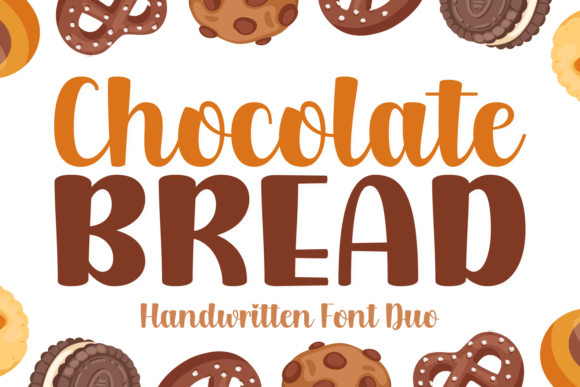
Journey through the realm of typography with Chocolate Bread Font, a script font family that's as sweet as a cocoa kiss and as warm as a toasted croissant. Inspired by the allure of handwritten notes and the timeless charm of vintage signage, Chocolate Bread Font exudes a personality that's both captivating and approachable.
This font family is a treasure trove of creative possibilities, featuring a captivating script font that dances and flows like a melody on paper. Its strokes are a symphony of elegance, with subtle flourishes and delicate curves that add a touch of whimsy to your designs.
Whether you're crafting wedding invitations that evoke romance, designing logos that ooze sophistication, or creating social media graphics that demand attention, Chocolate Bread Font is your secret weapon. Its versatility extends beyond the screen, making it the perfect choice for handwritten letters, greeting cards, and DIY projects that yearn for a personal touch.